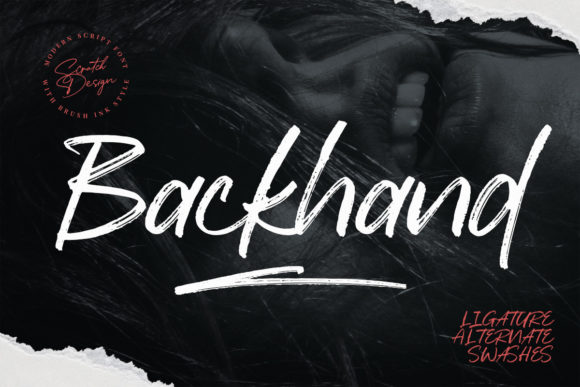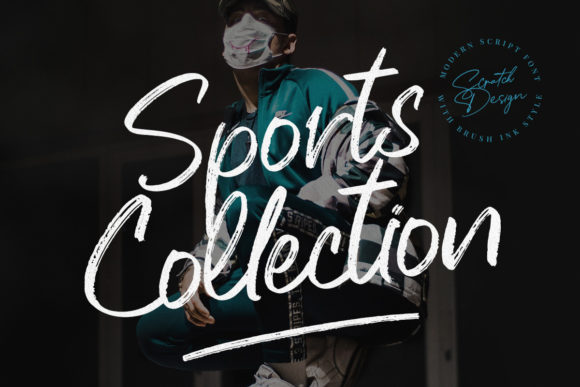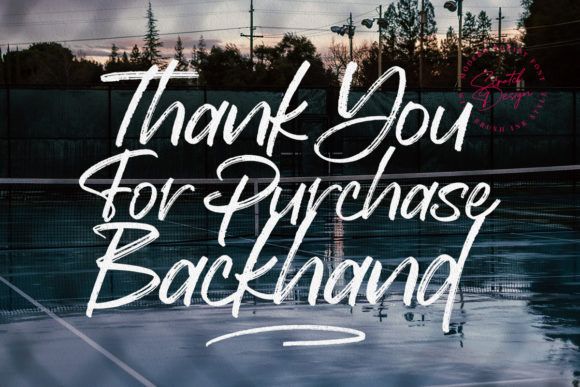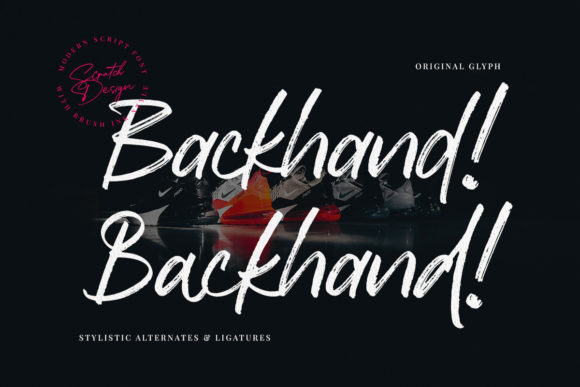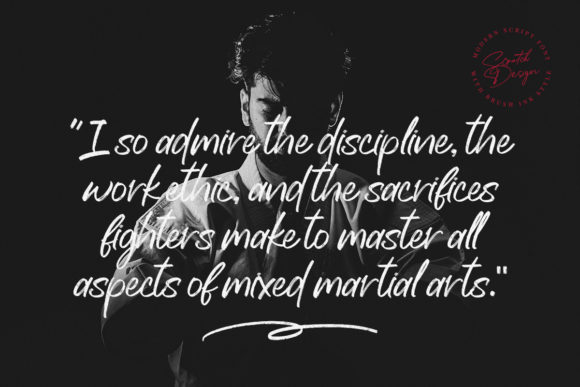
About Backhand Font
Backhand is a brushed and stylish handwritten font. It looks stunning on wedding invitations, thank you cards, quotes, greeting cards, logos, business cards and every other design which needs a handwritten touch.